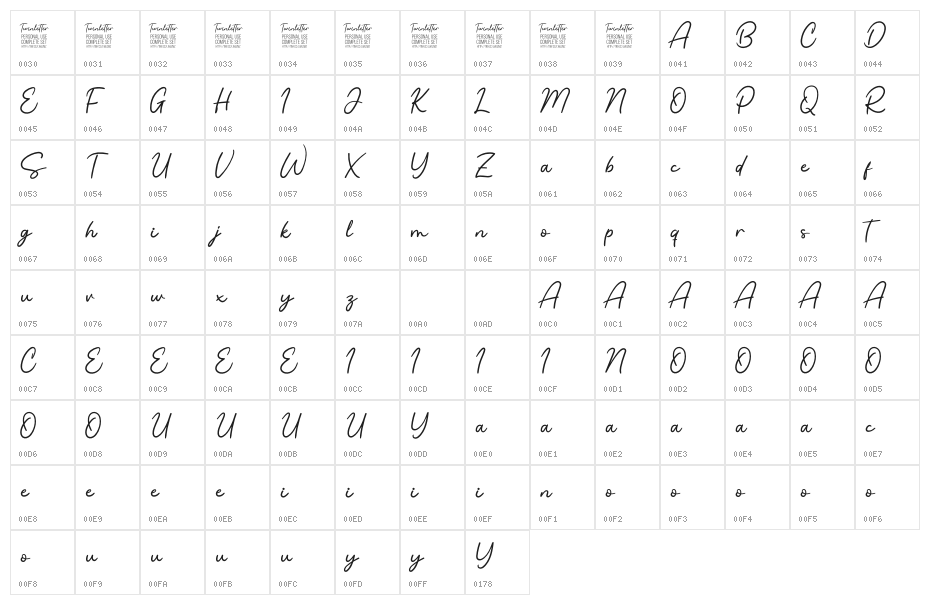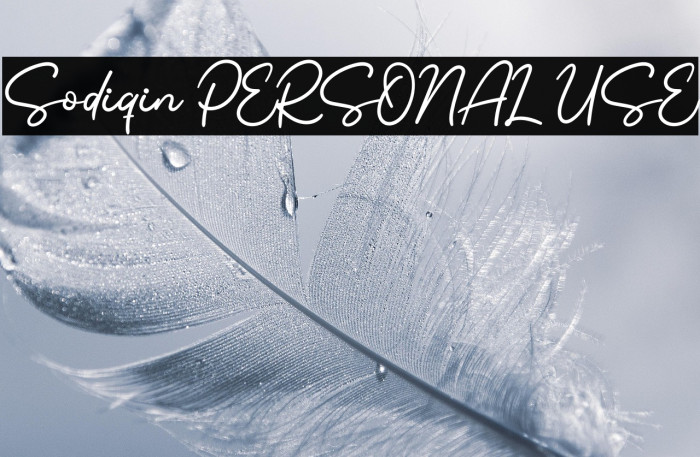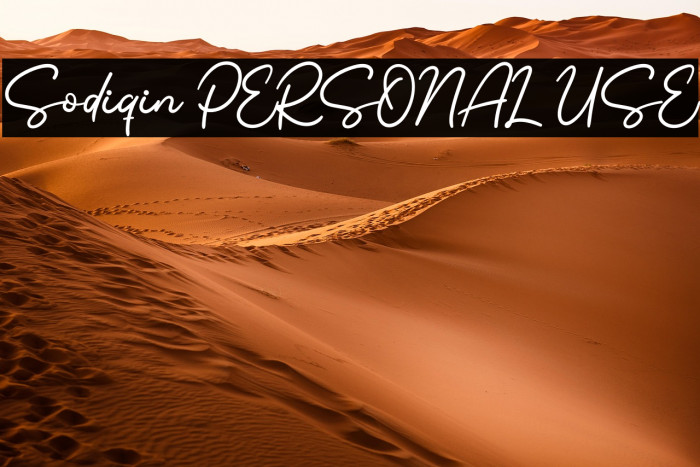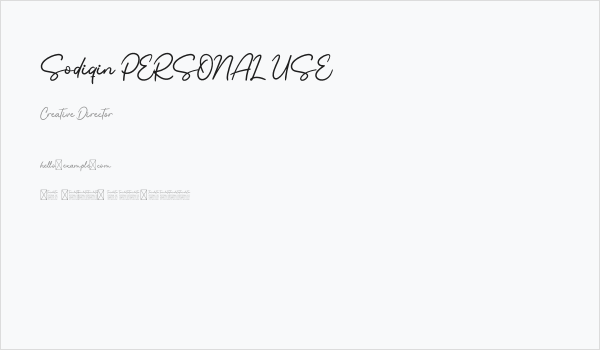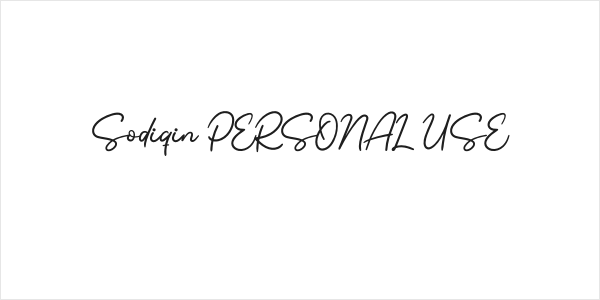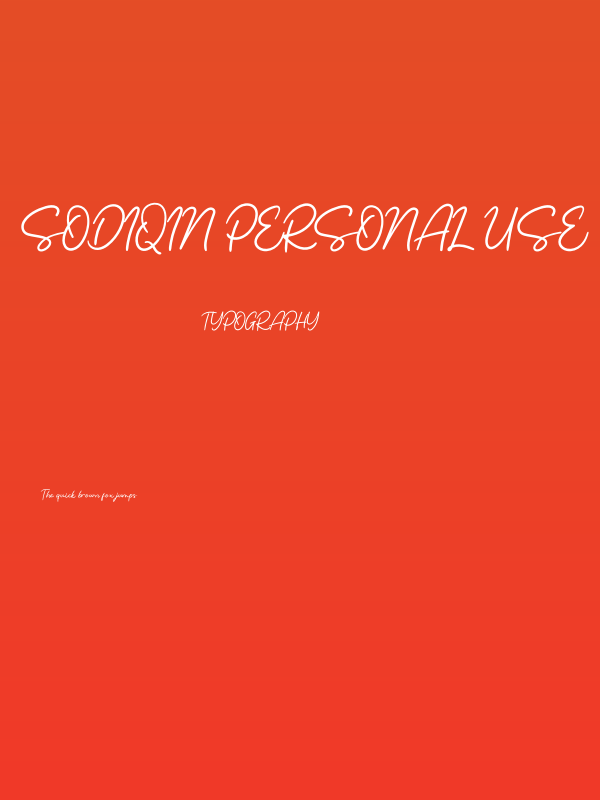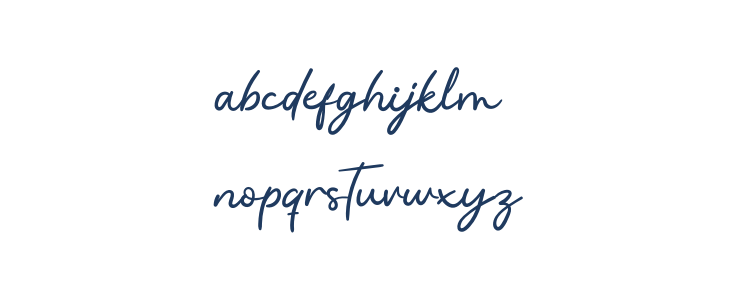
Sodiqin PERSONAL USE Font
Sodiqin PERSONAL USE Description
This font features a flowing, cursive style with a modern touch. The uppercase letters are elegantly elongated with smooth curves, giving a sense of fluidity and grace. The lowercase letters maintain a consistent style, with some characters having unique loops and swashes that add personality. The font is highly legible, despite its decorative nature, making it suitable for both formal and informal uses. The overall design is cohesive, with a balanced weight that ensures readability while maintaining an artistic flair. The font's style is reminiscent of handwritten calligraphy, offering a personal and intimate feel.